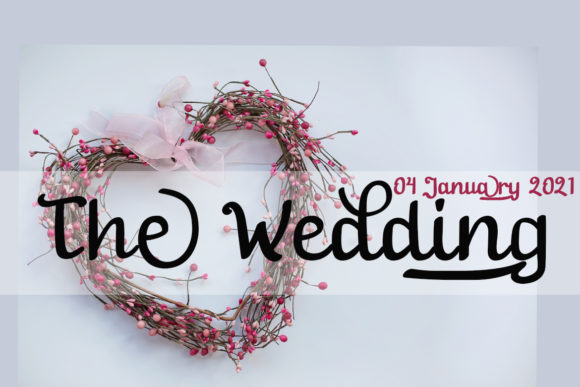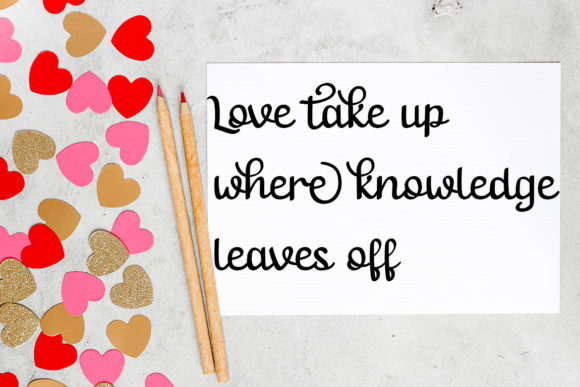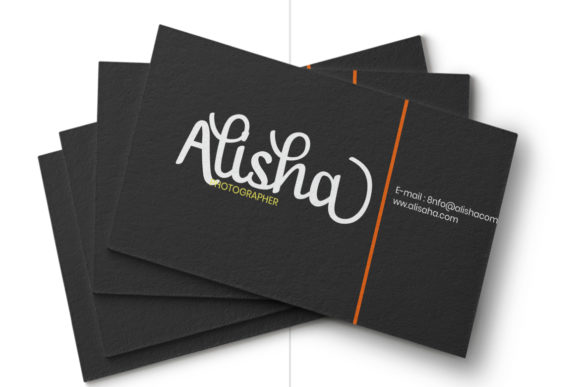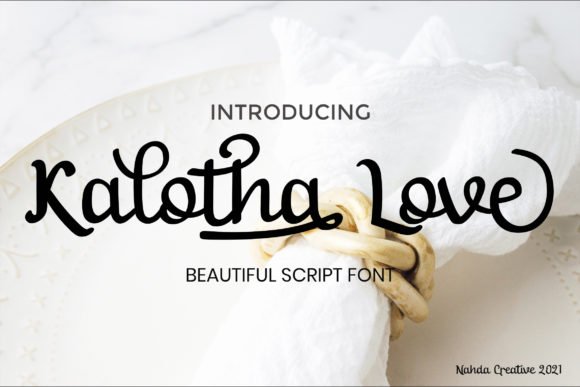
Introduction to Kalotha Love Font
Kalotha Love is an incredibly unique handwritten font.
Its sweet and full of life style makes this font a wonderful choice for brightening up your designs .
Key Features of Kalotha Love Font
Why Choose Kalotha Love Font?